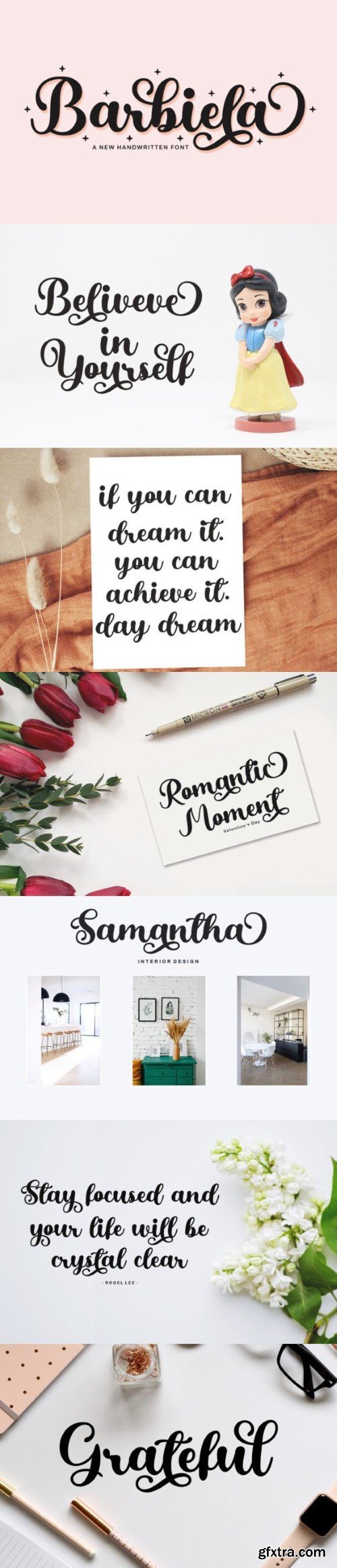
芭比拉字体
Barbiela is a stylish and incredibly elegant handwritten font. It looks stunning on wedding invitations, thank you cards, quotes, greeting cards, logos, business cards, and every other design which needs a handwritten touch.